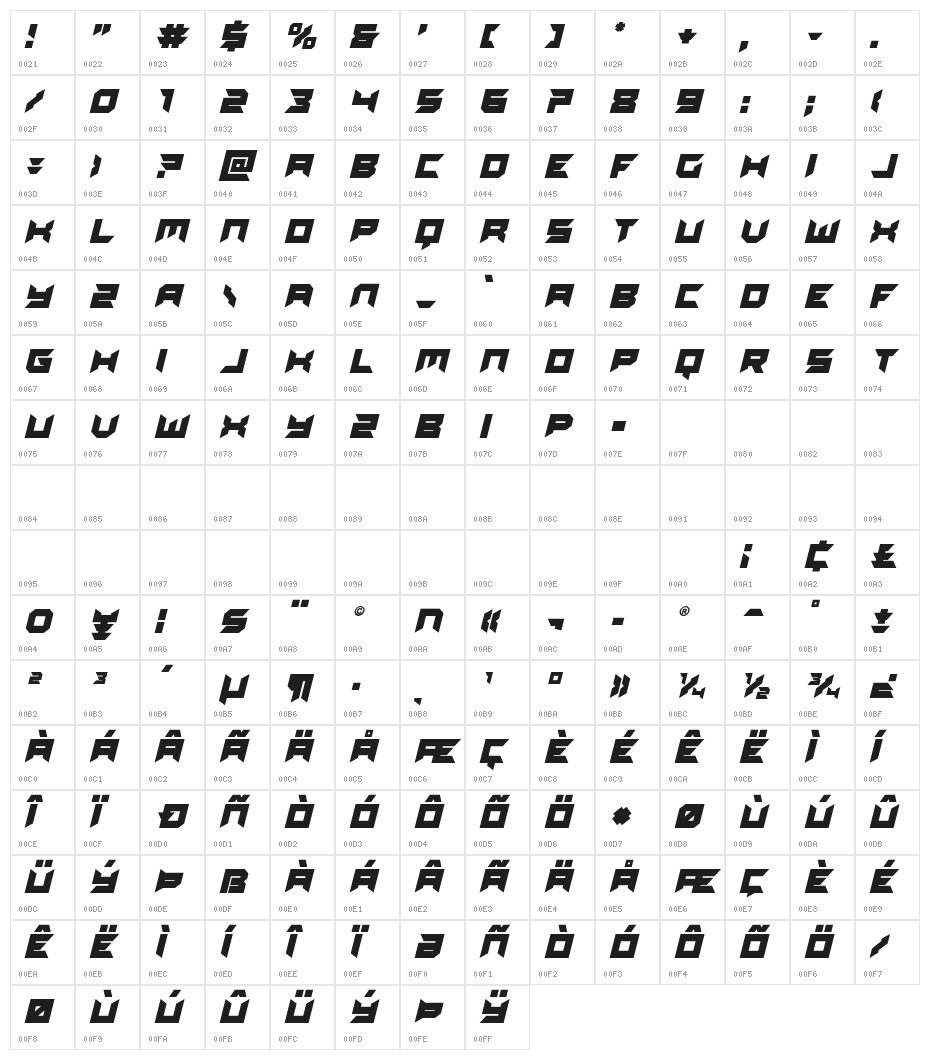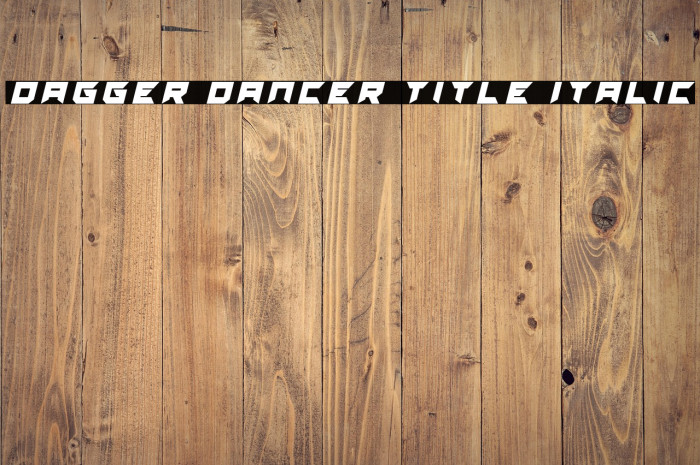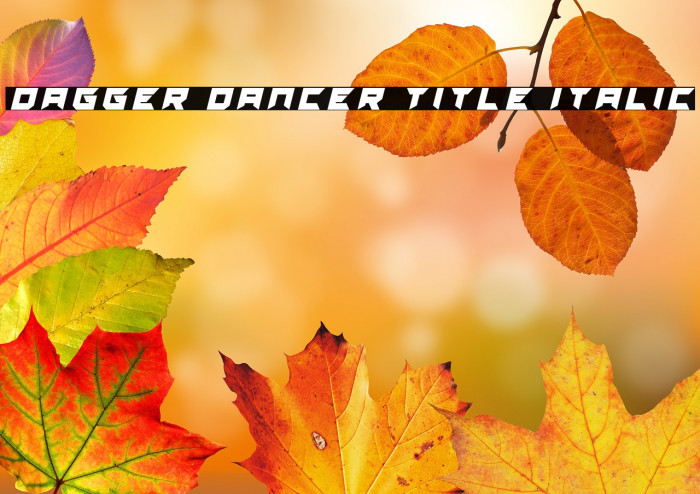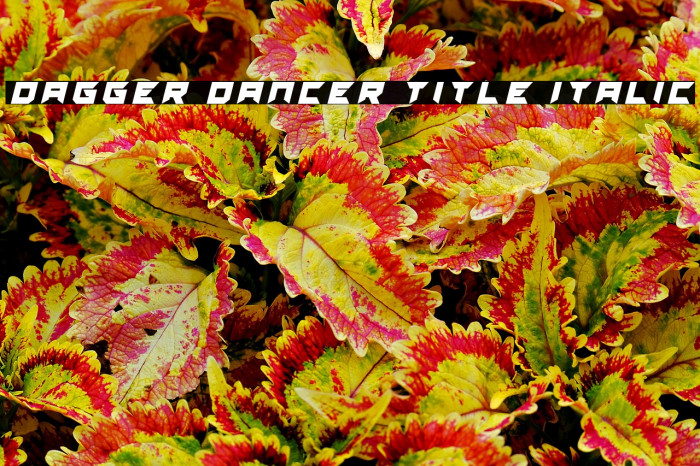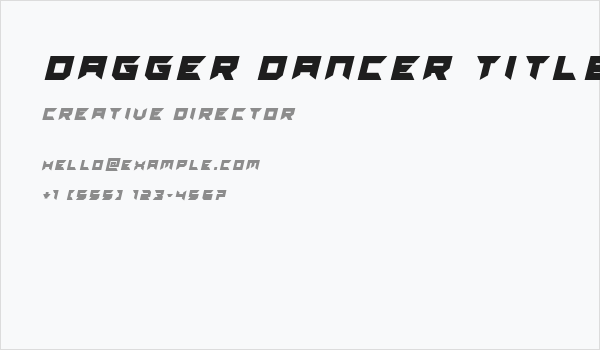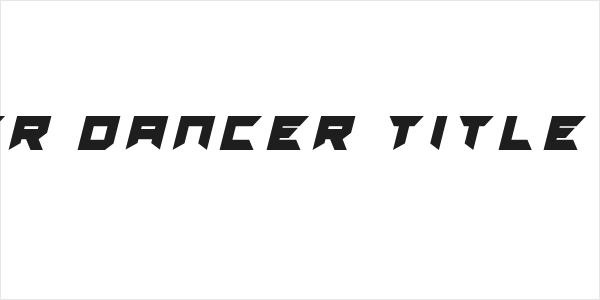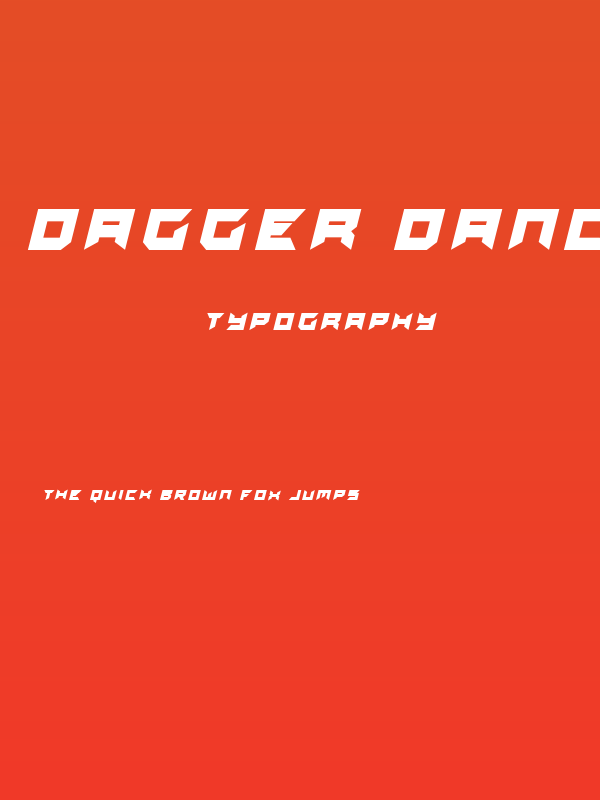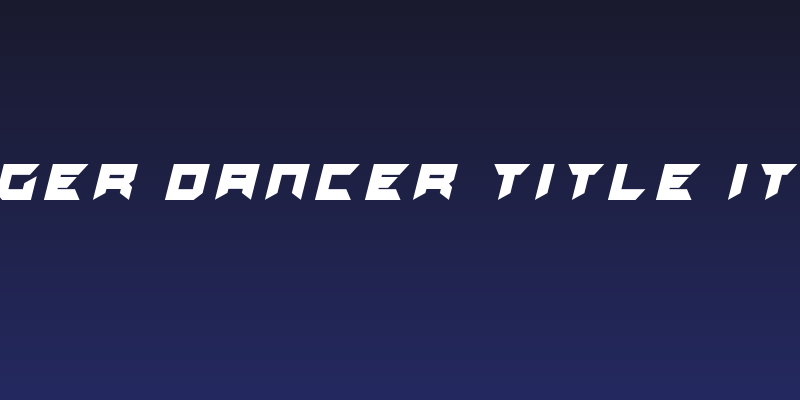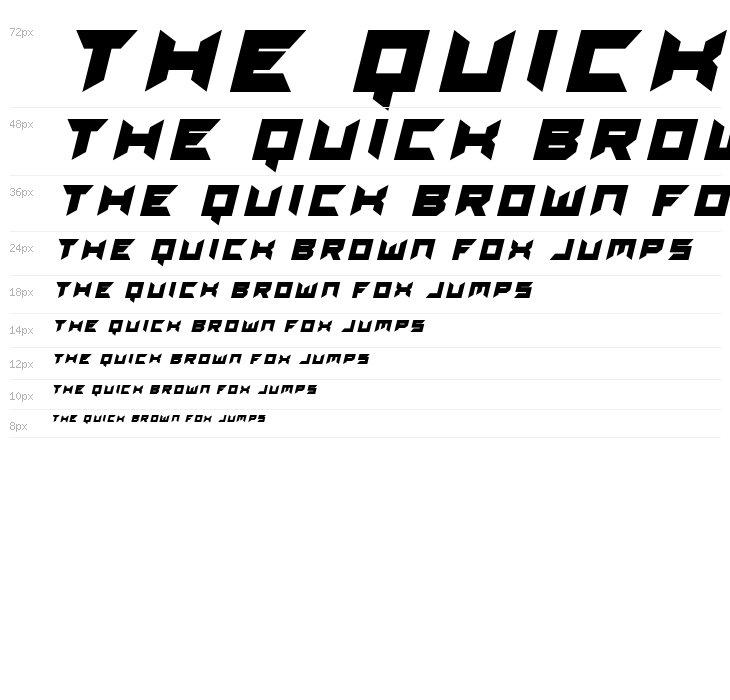
Dagger Dancer Title Italic Font
Dagger Dancer Title Italic Description
This font features a bold and angular design with sharp, dagger-like edges that create a sense of movement and dynamism. The italicized style adds a slanted, forward-leaning appearance, enhancing its energetic and modern feel. Each character is distinct, with a geometric structure that emphasizes its decorative nature. The uppercase and lowercase letters maintain a consistent style, while the numbers and special characters integrate seamlessly into the overall design. This font's unique aesthetic makes it stand out, ideal for projects that require a bold statement.
Proposed ProjectsIdeal for branding, logos, posters, and any design that requires a bold, eye-catching typeface.